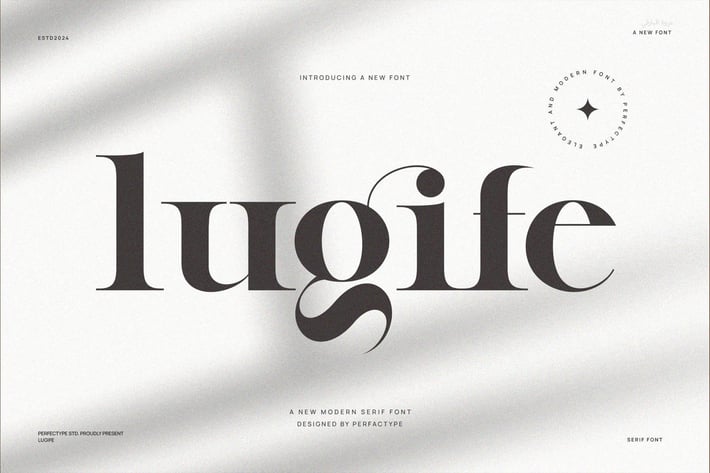
Lugife Modern Elegant Serif Font Typeface
Lugife is a modern and elegant serif typeface created for designers who value both style and clarity. It combines classic serif elements with a clean, modern finish. Because of this, it’s perfect for a wide range of design needs.
If you're designing for luxury brands, high-end editorials, or stylish invitations, Lugife is a great choice. Its smooth curves and sharp edges give it a timeless yet fresh look. Also, the font reads well at different sizes, making it ideal for both print and digital use.
Moreover, Lugife is simple to use. Its well-spaced letters make your text easy to read. While some serif fonts feel heavy, Lugife stays light and elegant. As a result, your design stays clear and polished. Even better, the font includes a full set of characters, with numbers, punctuation, and support for many languages.
Here’s what makes Lugife stand out:
- Clean, stylish serif design
- Excellent readability across all sizes
- Suitable for logos, titles, and body text
- Includes punctuation and multilingual support
- Works for both print and digital design
- Elegant and modern in every detail
- Easy to pair with other fonts
- Maintains balance and flow in every word
Because of its versatility, you can use Lugife in many ways. For example, it looks great on magazine covers, product packaging, and website headers. It also works well in formal documents and wedding invites. No matter the project, it brings a strong and elegant voice to your text.